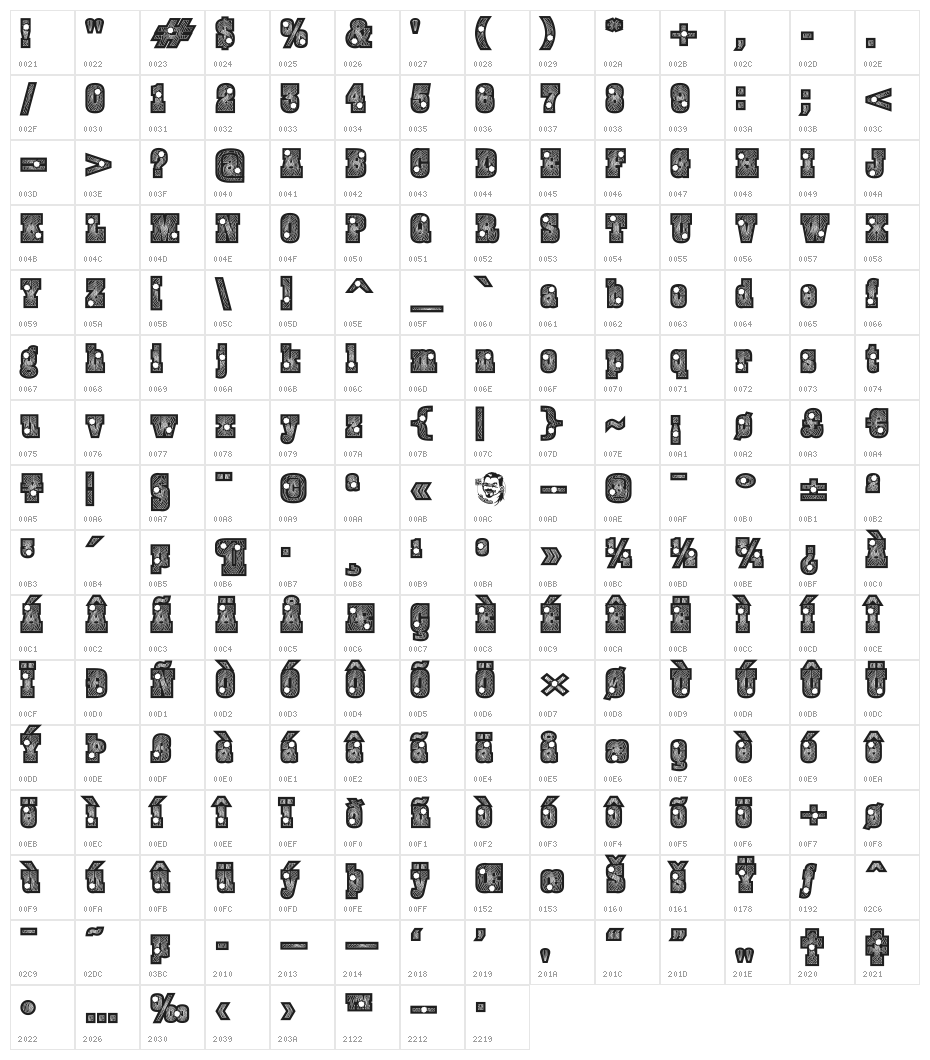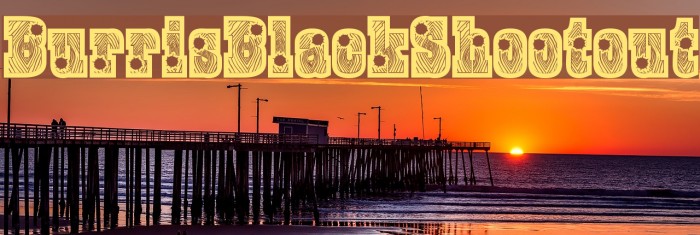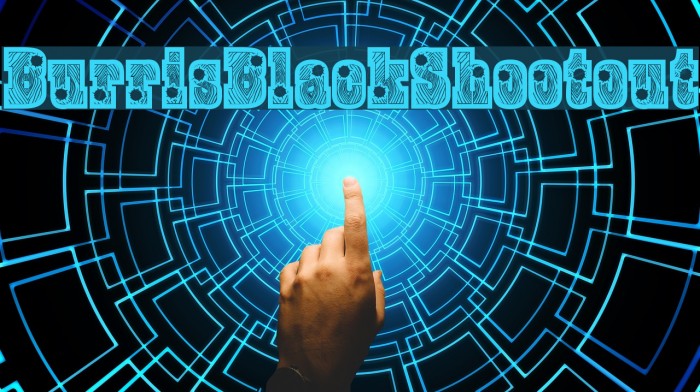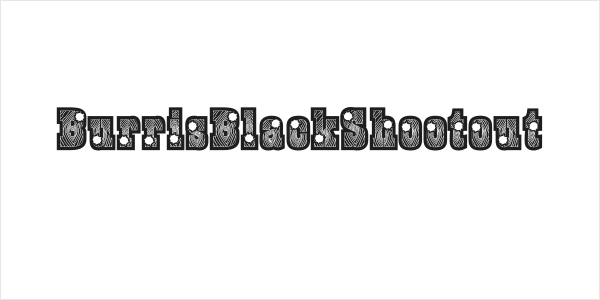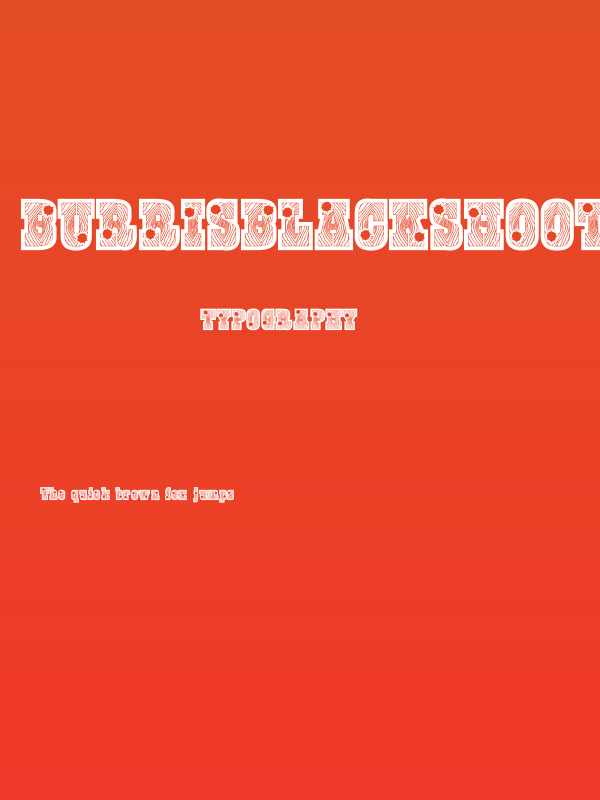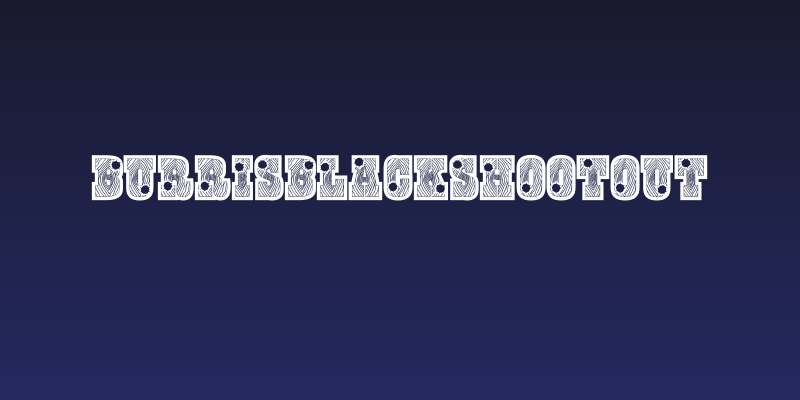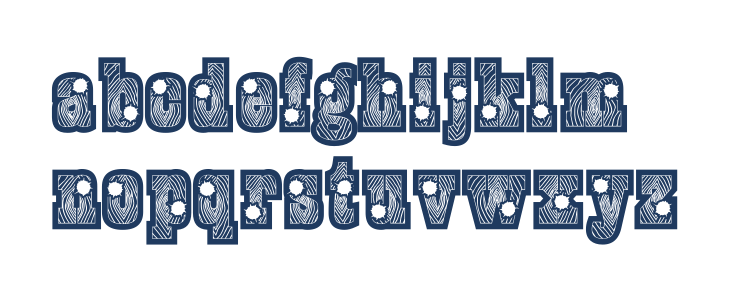
BurrisBlackShootout Font
BurrisBlackShootout Description
This font features a bold, decorative style with intricate patterns and textures within each character. The letters are designed with a strong, block-like appearance, and each character is adorned with unique, detailed line work that adds depth and visual interest. The font has a playful yet edgy feel, with elements that resemble bullet holes, giving it a rugged, adventurous vibe. The uppercase and lowercase letters maintain a consistent style, while the numbers and special characters are equally detailed, making it suitable for eye-catching designs.
Proposed ProjectsIdeal for posters, album covers, themed events, or any project requiring a bold, eye-catching typeface.